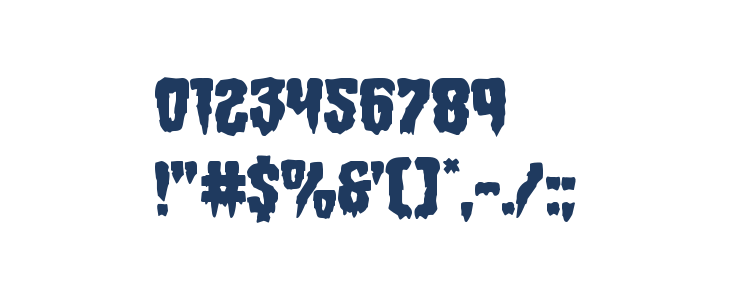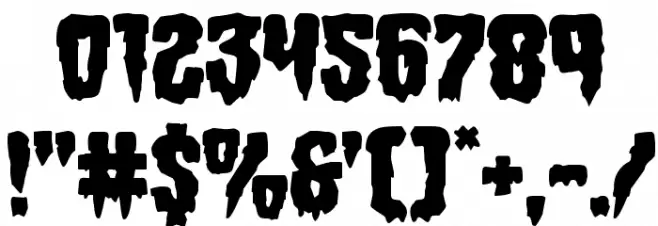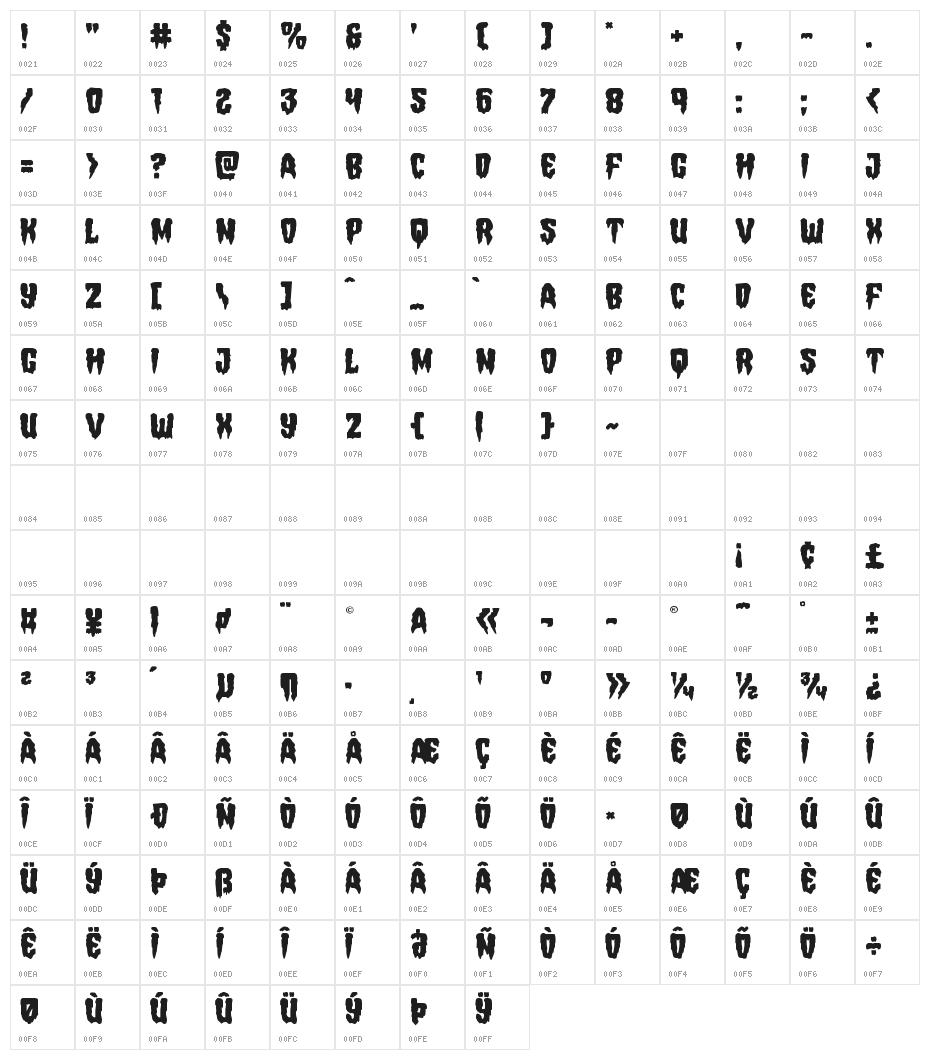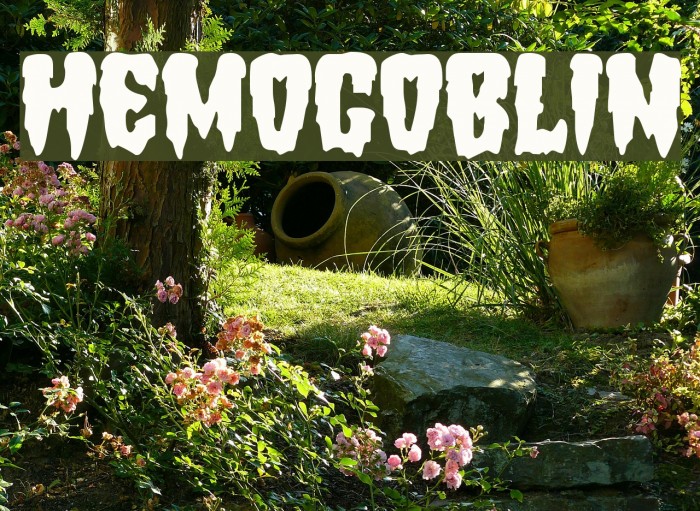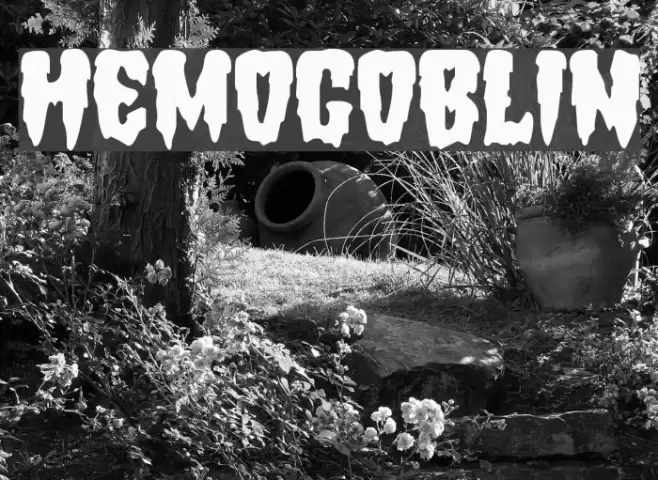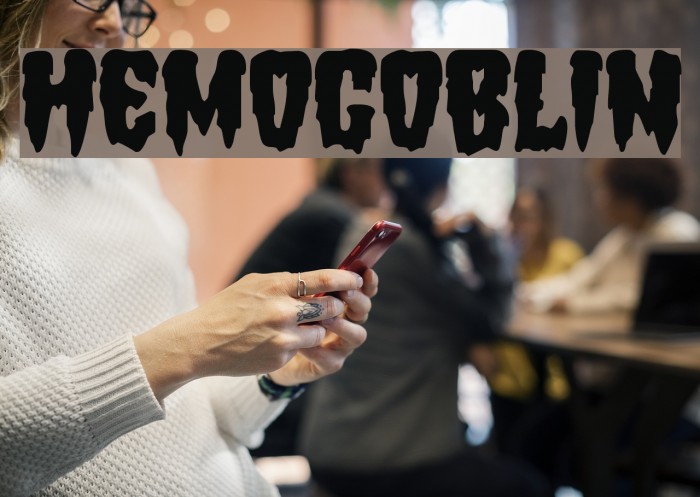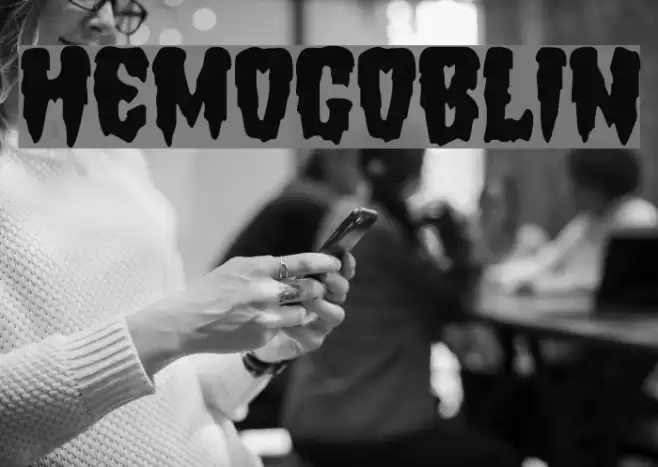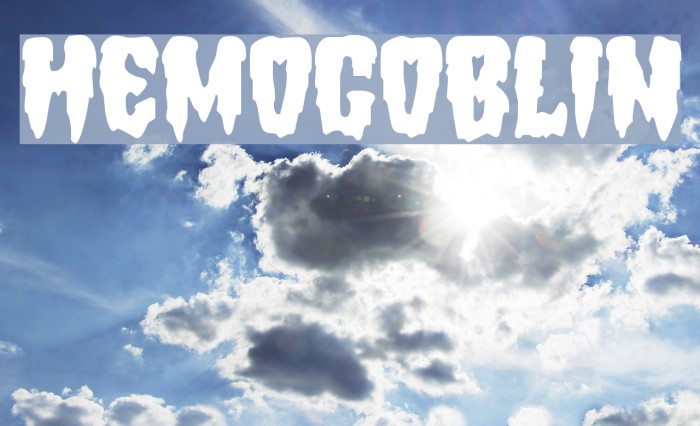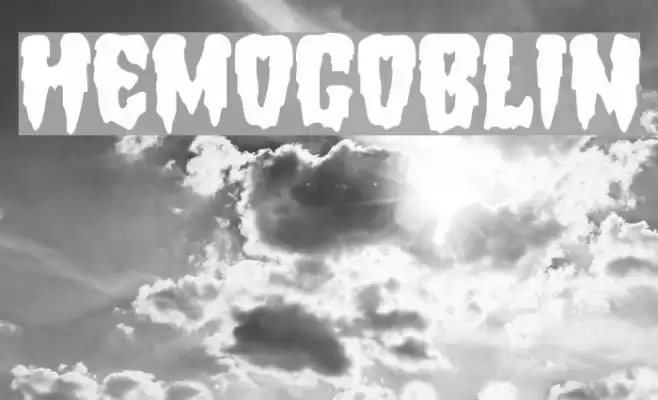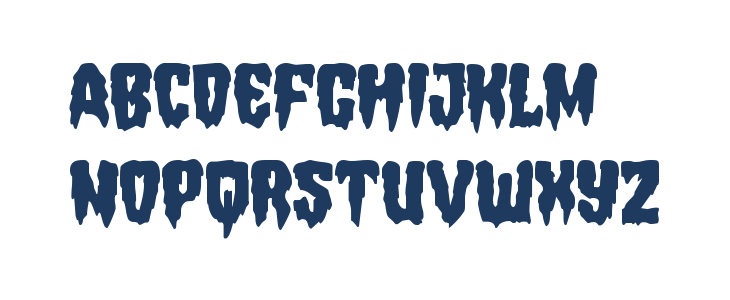
Hemogoblin Font
Hemogoblin Description
This font features a bold and dramatic style with a dripping effect that gives it a horror-themed appearance. The characters are thick and uneven, resembling melting or bleeding forms, which adds a sense of movement and chaos. The uppercase and lowercase letters maintain a consistent style, with jagged edges and irregular shapes. Numbers and special characters follow the same design, making the font cohesive across different uses. This font is ideal for creating a spooky or eerie atmosphere, perfect for Halloween-themed projects or anything requiring a touch of the macabre.
Proposed ProjectsIdeal for Halloween posters, horror movie titles, haunted house flyers, and spooky event invitations.